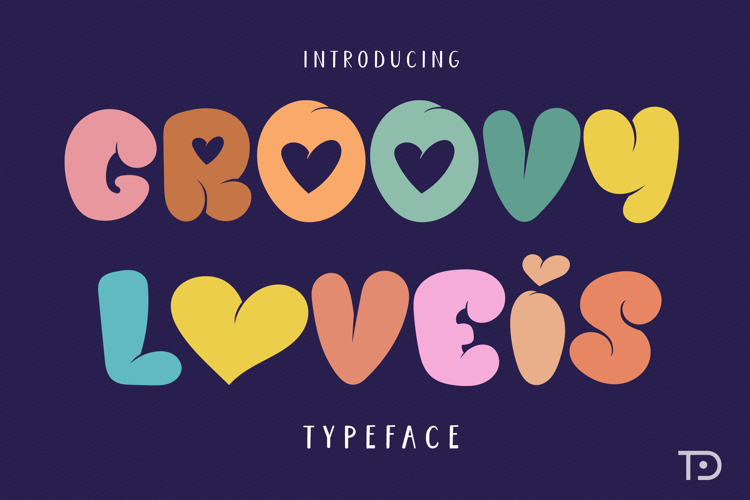
Introducing Groovy Loveis, a charming Valentine display font that effortlessly captures the spirit of festivities. Bursting with joviality and warmth, this font is destined to become an essential part of your holiday-inspired creative endeavors. Envision it dazzling on preferably everything from Christmas-themed t-shirt patterns and mug designs to digital artworks, crafts, and greeting cards. Undeniably, Groovy Loveis acts as the ideal finishing touch to any project, imbuing them with a playful yet elegant aura. Indeed, it's the perfect way to spread love and cheer every holiday season.
GroovyLoveis